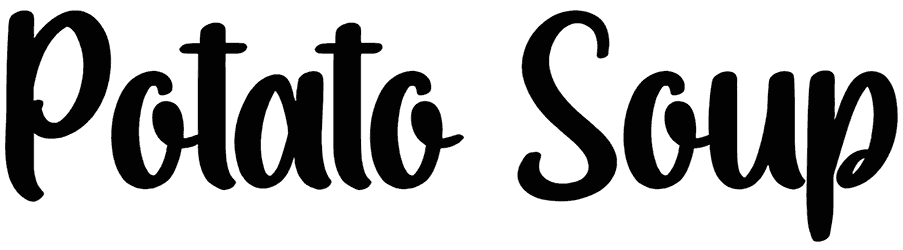
Potato Soup Font
If you want to give a modern and casual form to your context, a handwritten font would be an apt choice. With a smooth brush-lettered form, Potato Soup can be harmonized with lots of subjects. There is no backup of numbers and punctuation marks, but still, this ice cream font can be a nice display for many layouts, namely postcards, apparel, logotypes, and so on.